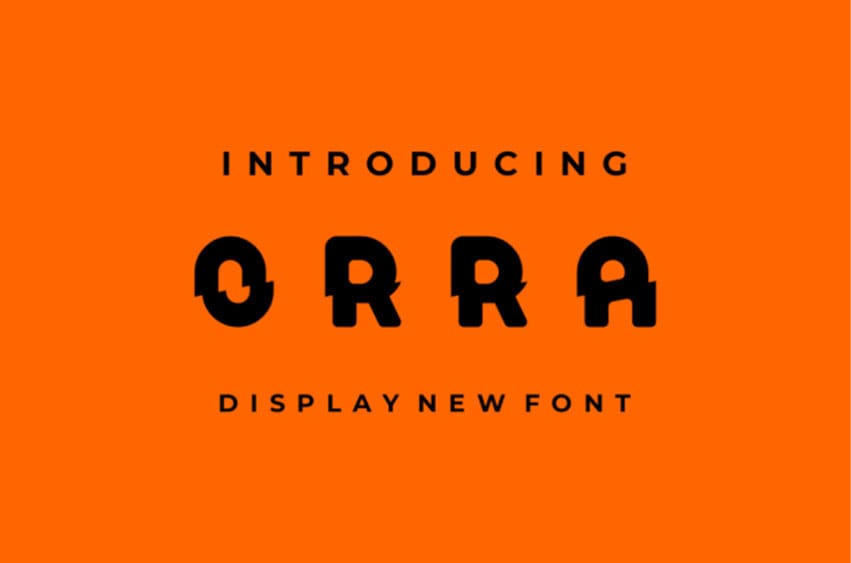
Orra Font is a cool and stylish display font.
Masterfully designed to become a true favorite, this font has the potential to bring each of your creative ideas to the highest level!